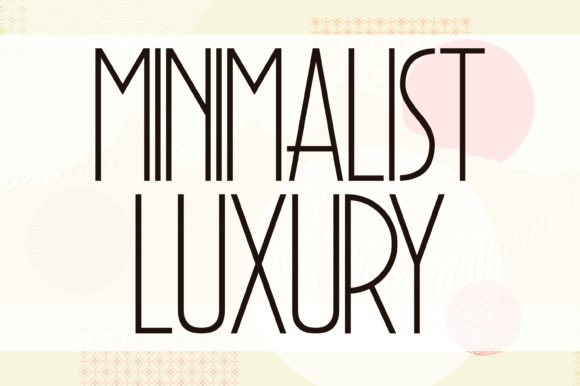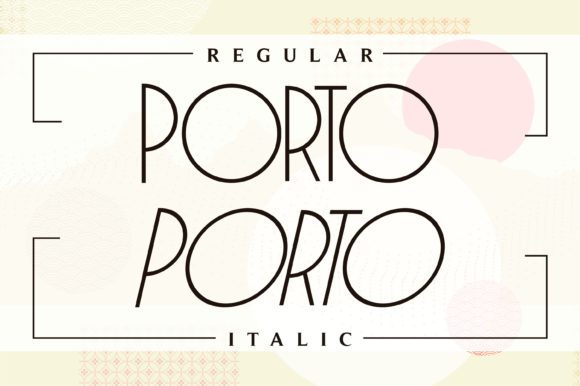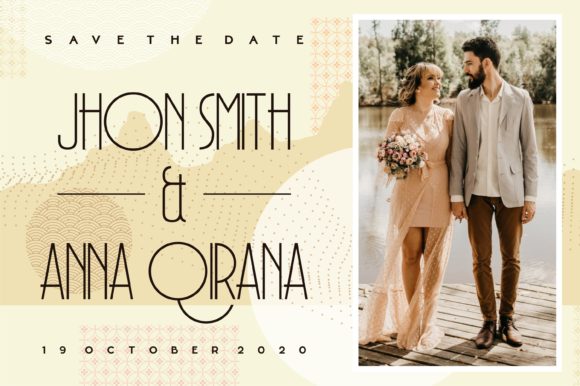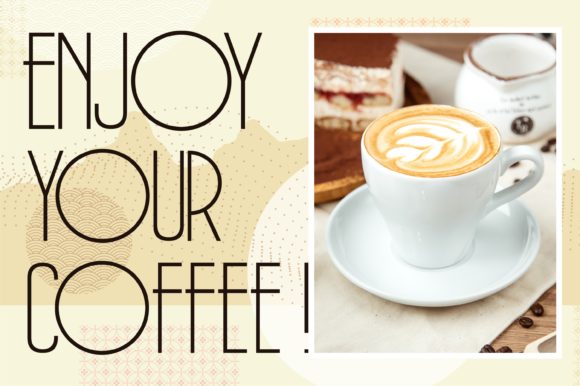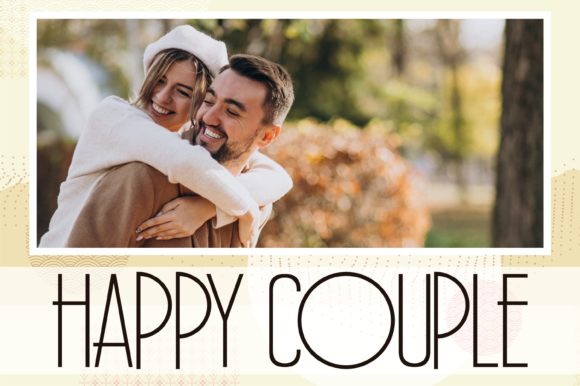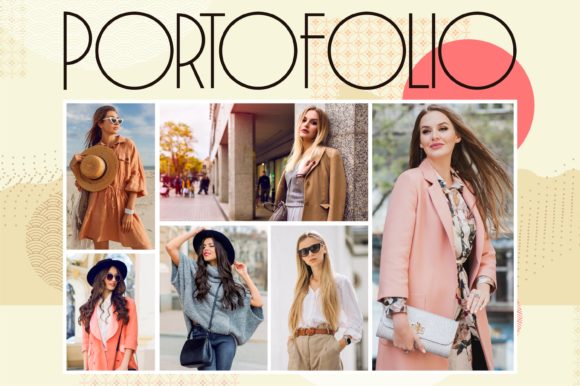
Introduction to Porto Font
Have you ever found yourself staring at a blank canvas, searching for the perfect font to bring your creative project to life? It’s a moment many designers can relate to. The right font can make all the difference, elevating your design from bland to grand. For those seeking a modern and sleek aesthetic, look no further than the Porto Font.
This clean and thin sans serif font is a game-changer for designers. Its smooth vibe makes it an ideal choice for a wide range of creative projects, from website headers to social media graphics. Whether you’re working with a transparent background or a bold design, the Porto Font is sure to impress. With its high quality design and versatility, it’s no wonder this font is becoming a go-to resource for designers.
Porto Font Key Features
- High-quality design resource ideal for creative projects and professional use
- Includes multiple font styles and weights, providing flexibility for designers to create unique and engaging typography
- Designed with high resolution in mind, ensuring crisp and clear text even at large sizes
- Perfect for use in a variety of design projects, from logos and branding to digital interfaces and print materials
Honest Review: Porto Font
I recently stumbled upon the Porto Font and I must say it’s been a game-changer for my creative project. This free download is a high-quality design resource that offers a lot of versatility. I particularly appreciate the transparent background option which allows for seamless integration into any design.
- What works well: ✨ High-quality design, transparent background, and a wide range of styles to choose from.
However, I do have a few limitations to mention. ⚠️ The font doesn’t quite work well with very small text sizes, and the bold weight can sometimes look a bit too chunky. Additionally, the font family could benefit from more variation in terms of style and weight.
Overall, I’m really impressed with the Porto Font and would highly recommend it to anyone looking for a high-quality, free design resource. It’s been a valuable addition to my toolkit and has helped elevate the overall look and feel of my project.
Tips for Getting the Most Out of Porto Font
To get the most out of Porto Font, use it for high-quality designs and projects. You can also combine it with other design resources for a unique and creative look. Additionally, use the transparent background feature to create visually appealing designs.
Porto Font is a versatile design resource that can be used for a variety of projects, including brochures, flyers, and business cards. It’s also a great choice for creating high-quality logos and branding materials.
Alternatives to Porto Font
Open Sans is a modern sans-serif font ideal for a wide range of creative projects, including websites and mobile applications. It is available for free download and can be used for both personal and commercial projects. When to use: Open Sans is suitable for body text and headings in digital products.
Comparison to Porto Font: Open Sans has a more straightforward and clean design compared to Porto Font, making it a better choice for simple and minimalistic designs.
Lato is a sans-serif font designed for use in digital products, including websites and mobile applications. It is available for free download and features a high-quality design. When to use: Lato is suitable for body text and headings in modern and creative projects.
Comparison to Porto Font: Lato has a more elegant and sophisticated design compared to Porto Font, making it a better choice for high-end and luxury brands.